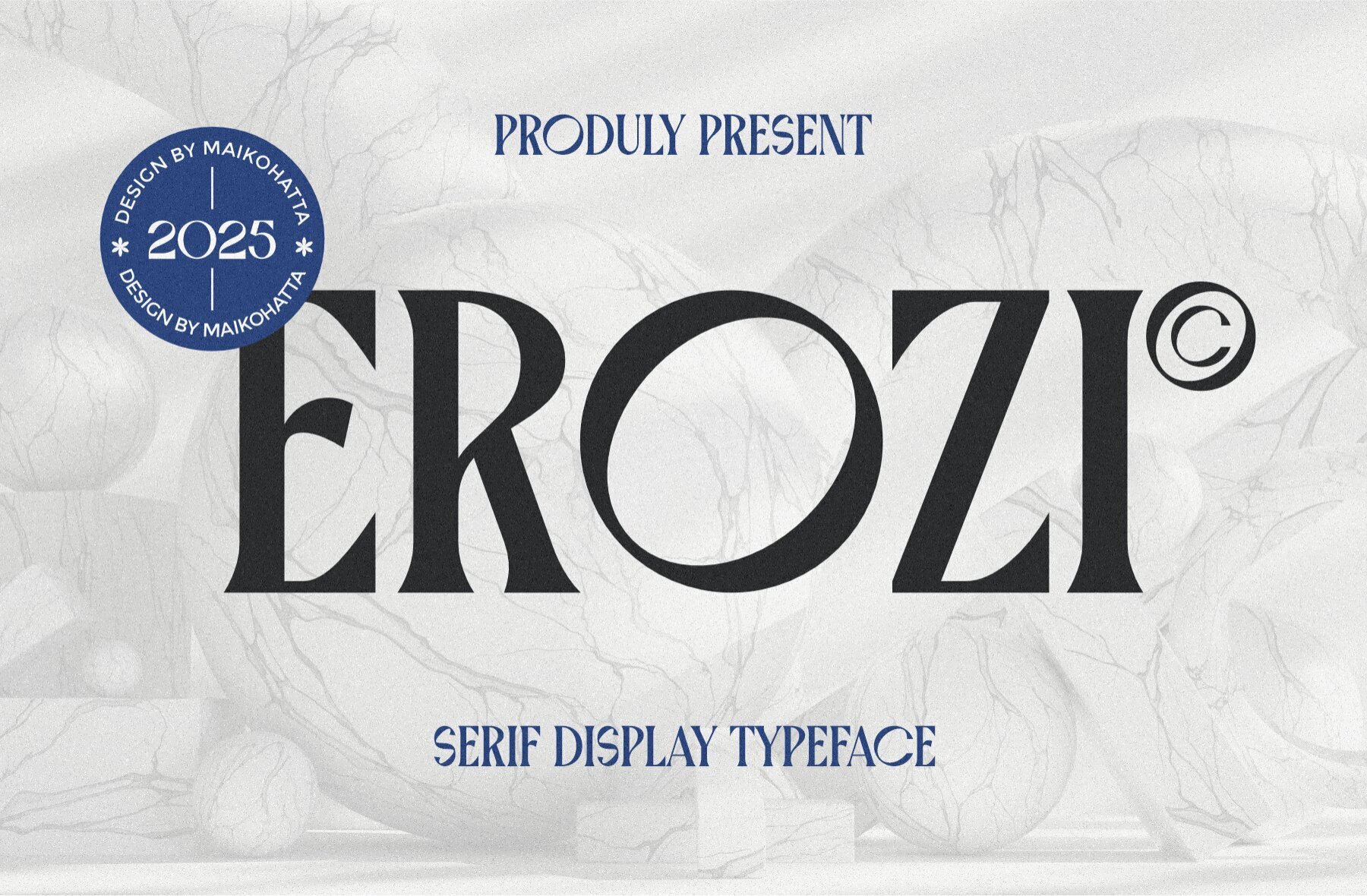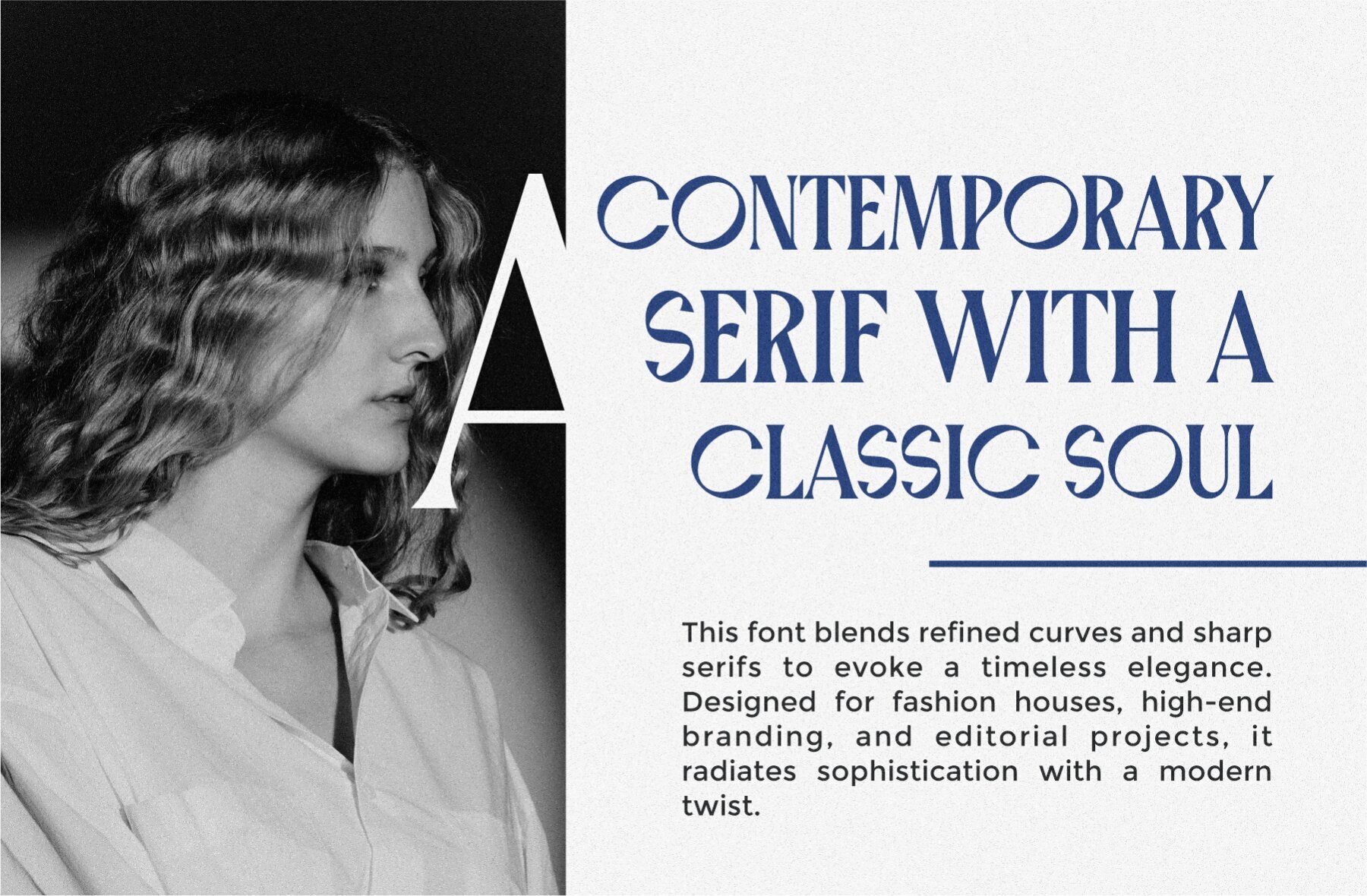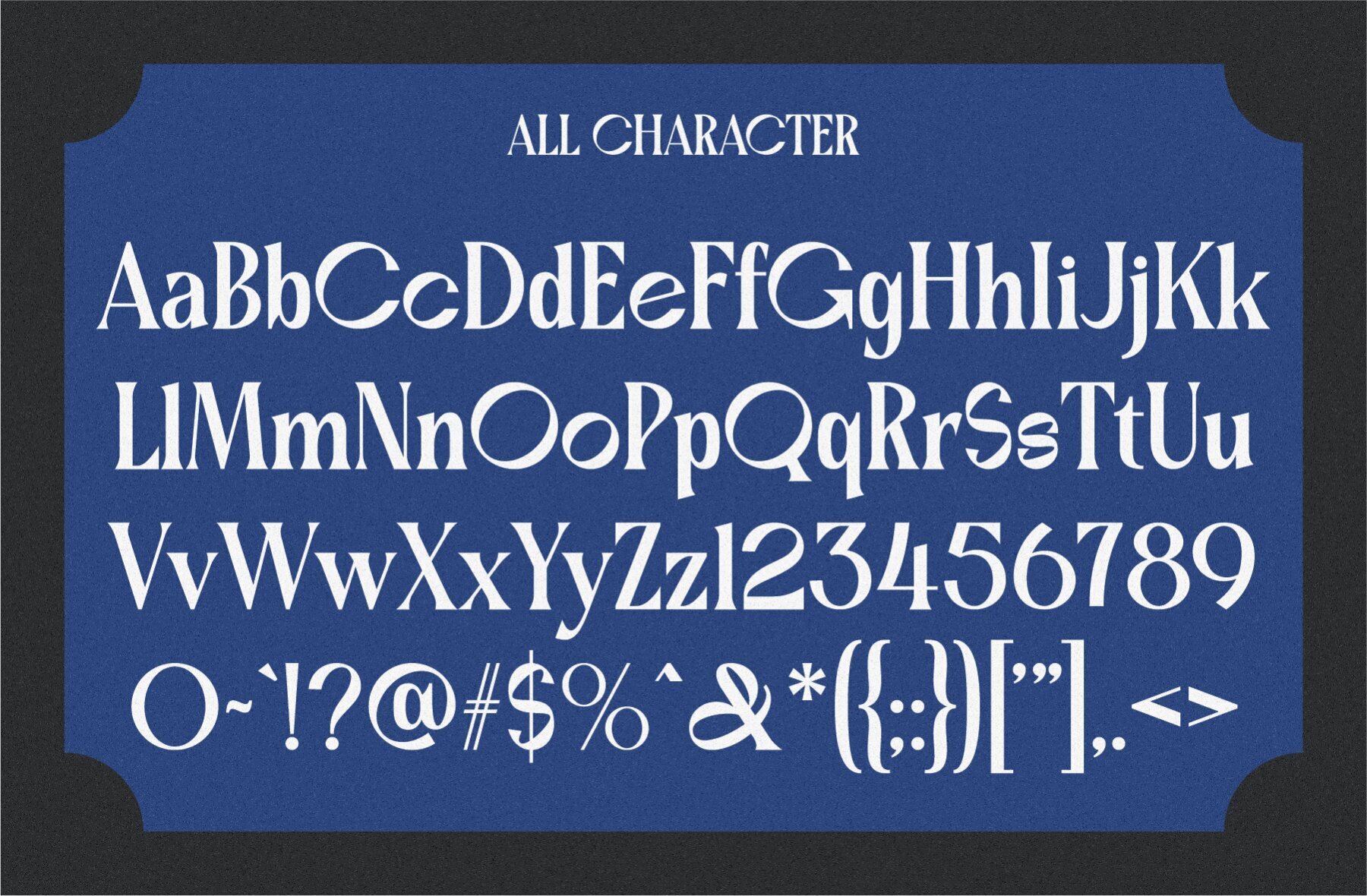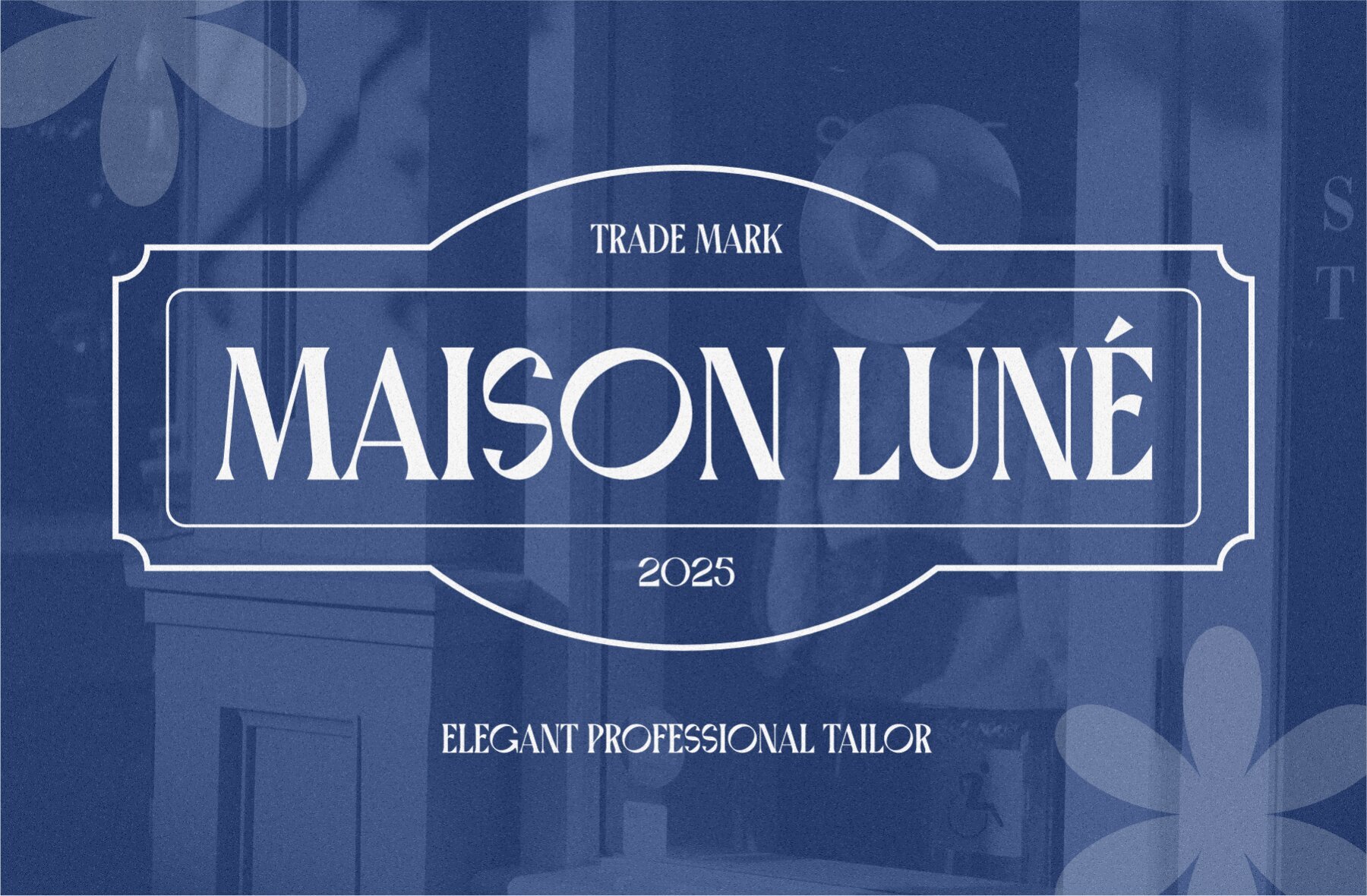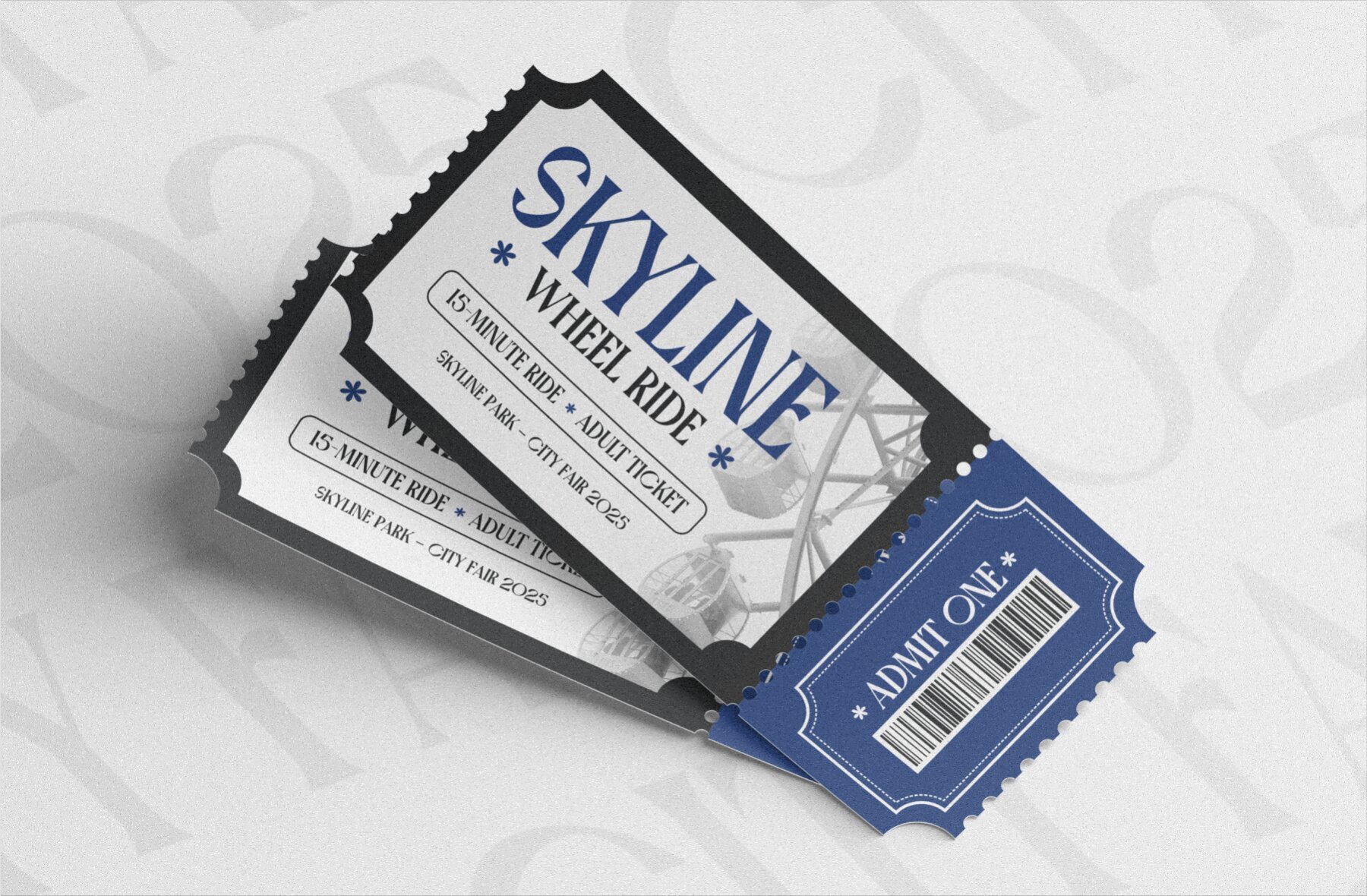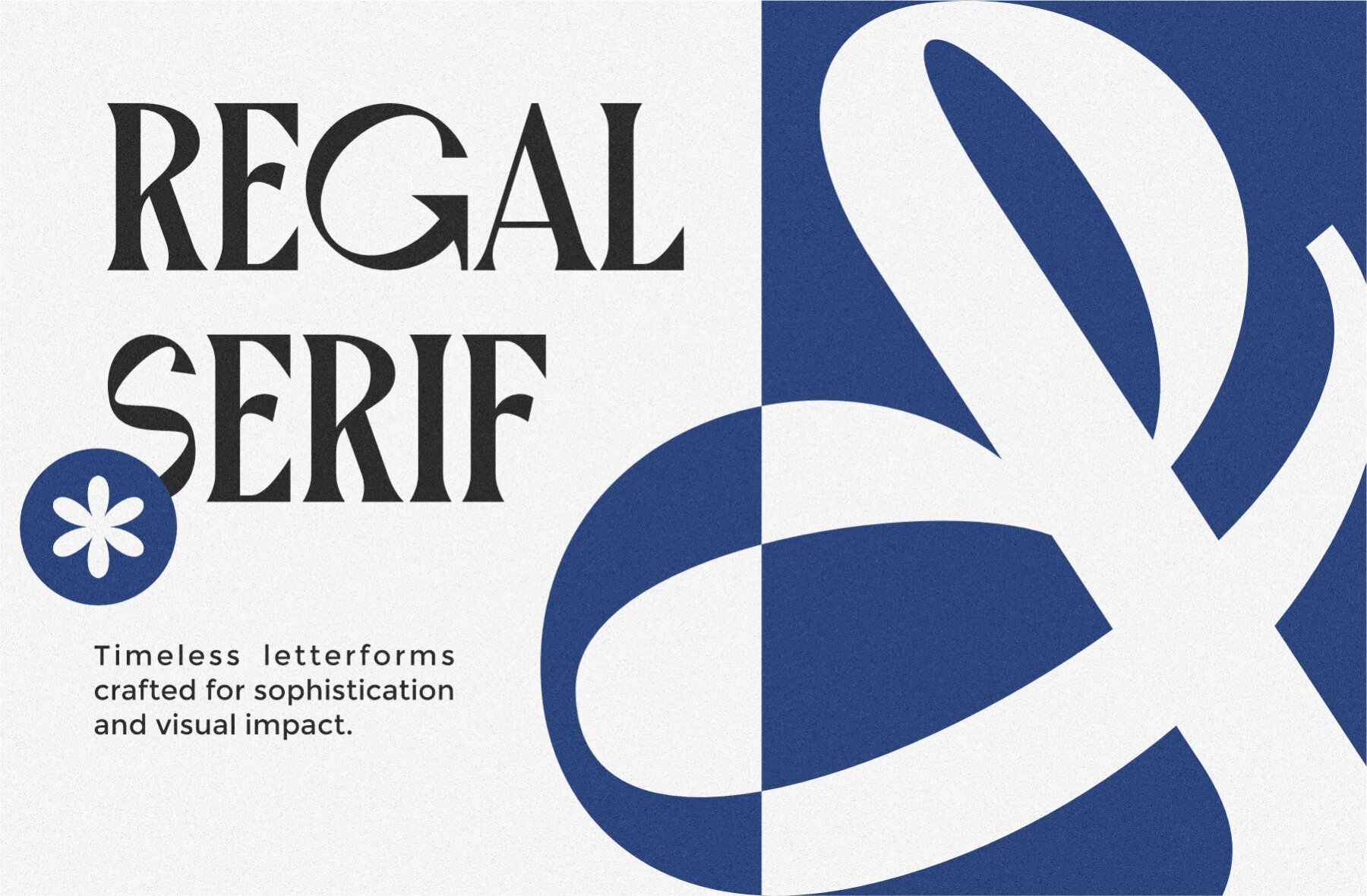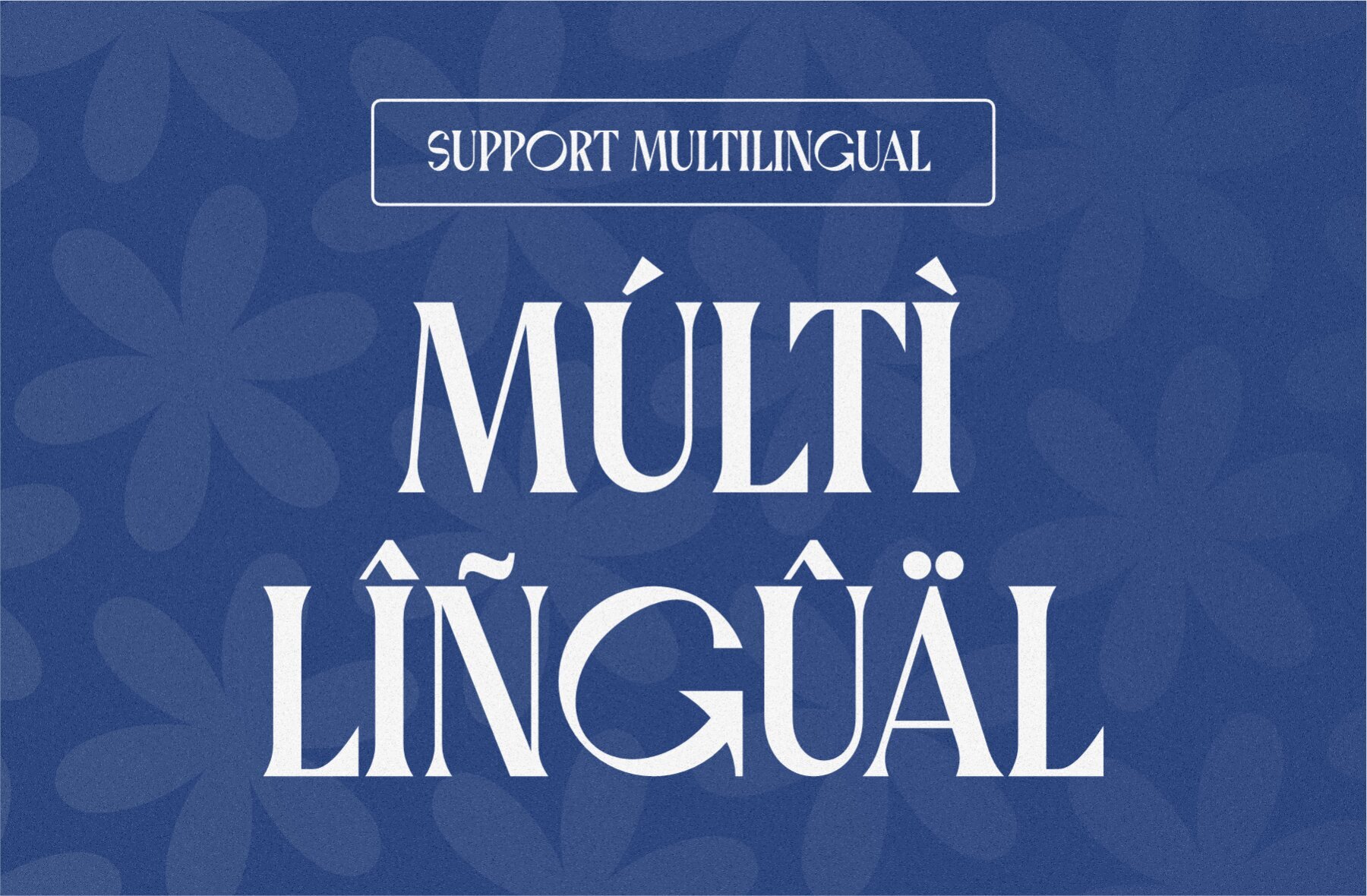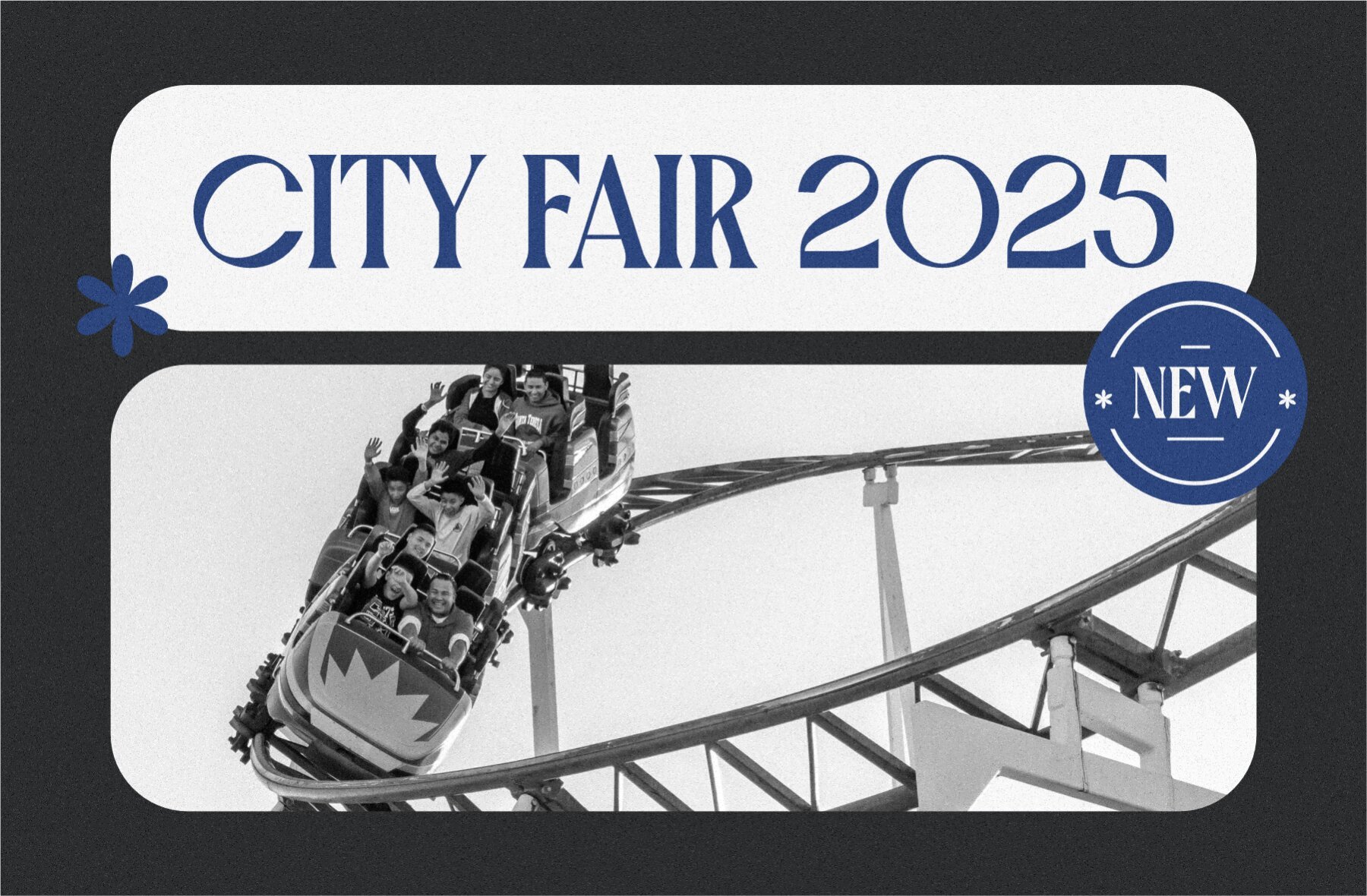
Erozi Font
EROZI
Erozi is a refined serif display typeface, marrying modern elegance with vintage flair. Released in 2025, it features sharp serifs, dramatic contrast, and unique letterforms, making it ideal for headlines, branding, editorial design, and luxury packaging. Erozi stands as a testament to the power of typography in making a bold visual statement. The typeface's artistic curves and bold presence exude sophistication, offering a contemporary yet timeless feel. Erozi is the perfect choice for design-savvy creators seeking a typeface that stands out with character and class, enticing attention and elevating your design projects.Erozi: A Distinctive Serif for the Discerning Designer